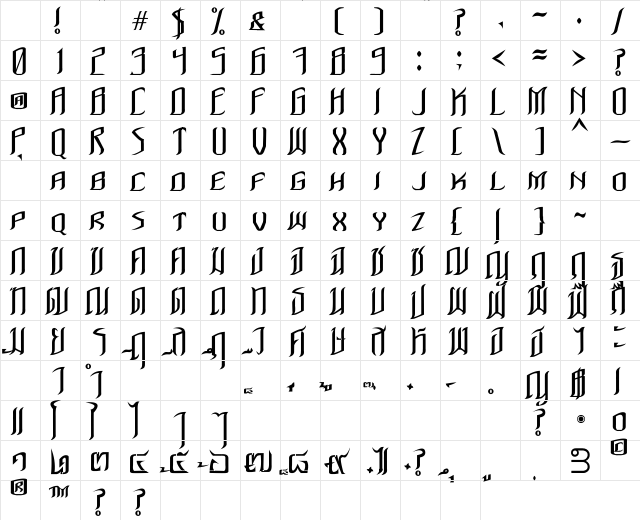
Complete NP NaipolTemplate with OTF Regular glyph index. Displaying only characters natively supported by NP NaipolTemplate with OTF Regular font.
NP NaipolTemplate with OTF is a composed and adaptable typeface that performs quietly and consistently across a wide range of design contexts.